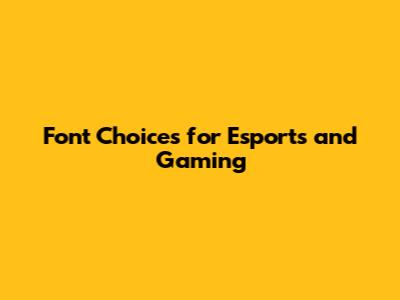
Hey guys, let's dive into something super important for any gamer or esports enthusiast: fonts! You might not think about it much, but the font you see on screen, whether it's in a game's UI, a team's logo, or even a streamer's overlay, plays a HUGE role in setting the vibe. We're talking about esports and gaming fonts here, and choosing the right one can make a massive difference. It's not just about looks; it's about readability, conveying emotion, and even building brand identity. Think about it – you wouldn't want a super fancy, hard-to-read script font for a fast-paced shooter, right? Nah, you need something crisp, clear, and maybe a little bit aggressive. Conversely, for a strategy game or a fantasy RPG, you might opt for something more thematic and detailed. We're gonna break down why these choices matter, what makes a good gaming font, and maybe even point you towards some awesome options to check out. So, buckle up, grab your favorite snack, and let's get nerdy about typography in the gaming world. We'll explore how different font styles can impact your perception of a game or brand, and why designers put so much thought into these seemingly small details. It's a whole universe of design principles at play, influencing everything from the clarity of in-game text to the overall aesthetic appeal of esports events. Get ready to see fonts in a whole new light!
The Importance of Readability in Gaming Fonts
When we're talking about esports and gaming fonts, the absolute number one priority, guys, has got to be readability. Seriously, imagine you're in the middle of an intense match, your heart is pounding, and you need to quickly glance at your ammo count or a crucial objective marker. If the font is too small, too stylized, or just plain clunky, you're gonna have a bad time. This isn't just about personal preference; it's about performance. Clear, legible text ensures that players can access vital information without missing a beat. Think about the user interface (UI) of your favorite games. Developers spend ages perfecting every button, icon, and piece of text to ensure it's intuitive and easy to understand, even under pressure. A poorly chosen font can completely undermine all that hard work. It can lead to frustration, confusion, and ultimately, a less enjoyable gaming experience. We're not just talking about games, either. Esports organizations, streamers, and tournament organizers all rely on clear typography for branding, communication, and broadcasting. A team logo needs to be instantly recognizable, and a streamer's overlay needs to be easily scannable during a live broadcast. This is where the magic of good font design comes in. It needs to be bold enough to stand out but not so flashy that it becomes distracting. It needs to be distinct enough to have personality but not so unique that it sacrifices clarity. We're looking for fonts that strike that perfect balance between aesthetic appeal and functional clarity. This is especially crucial in esports, where split-second decisions can make or break a match. Every piece of information displayed on screen needs to be processed almost instantaneously. Therefore, a font that prioritizes clean lines, appropriate spacing, and distinct letterforms is paramount. Consider the variety of text elements in a game: character names, item descriptions, chat messages, objective markers, health bars, and so on. Each of these might have slightly different requirements, but the overarching need for legibility remains constant. Designers often use different weights and styles of a single font family to maintain consistency while subtly differentiating types of information. For instance, a slightly bolder weight might be used for titles, while a regular weight is perfect for body text. The goal is to create a visual hierarchy that guides the player's eye and ensures they can quickly identify and understand the information they need, when they need them. It's a subtle art, but one that has a profound impact on the overall gaming experience.
What Makes a Font "Gamer-Friendly"?
So, what exactly makes a font tick when it comes to the world of esports and gaming fonts? It's a combination of factors, really. First off, boldness and weight are key. Games and esports often have a high-energy, dynamic feel, and a font that's too thin can get lost in the visual clutter. Think of fonts that have a strong presence, maybe even a slightly aggressive edge. This doesn't mean they have to be overly complex, though. In fact, simplicity and clarity are often preferred. Overly decorative fonts can be a nightmare to read, especially when they're crammed into small spaces or displayed quickly. You want a font where the letters are distinct and easily recognizable. This means good kerning (the space between letters) and clear letterforms. Another crucial element is versatility. A good gaming font should work well in various sizes and contexts. Can it look sharp on a massive esports arena screen? Can it also be legible when shrunk down to a tiny icon or menu item? This adaptability is super important for game developers and esports brands who need their visual identity to be consistent across different platforms and applications. We also see a lot of fonts with a futuristic or techy vibe. This often comes through in sharp angles, geometric shapes, and a generally modern aesthetic. Think about sci-fi games or cyberpunk themes – the fonts usually reflect that. However, it's not a strict rule. Some fantasy games might use fonts that have a more rugged, medieval feel, but they'll still prioritize readability. What really ties it all together is the overall impression the font gives off. Does it feel exciting? Does it feel epic? Does it feel reliable? The font is a silent storyteller, and in gaming, it's often telling a story of action, competition, and immersion. We often see fonts that have a slight stencil effect or a distressed look, which can add a gritty, industrial feel that's popular in many action-oriented games. Others might have sharp, angular terminals that give them a sense of speed and precision. Even the x-height (the height of lowercase letters like 'x') plays a role; a larger x-height generally improves readability. Consider the spacing; fonts with slightly wider letter spacing can sometimes feel more open and easier to read, especially in dynamic environments. The key is that the font shouldn't be a barrier to the player's engagement with the game or the esports content. It should enhance it, subtly guiding their eyes and reinforcing the intended atmosphere. It’s about finding that sweet spot where a font has enough character to be memorable and engaging, without sacrificing the fundamental need for clear communication. This often leads to designers creating custom font families or heavily modifying existing ones to achieve the precise look and feel they desire for their project.
Exploring Different Font Styles for Gaming
Alright, let's get into the nitty-gritty, guys, and explore the different font styles that dominate the esports and gaming fonts landscape. You'll notice a few common themes popping up. First up, we've got the sans-serif fonts. These are your go-to for clarity and a modern feel. Think clean lines, no fancy little feet (serifs) on the letters. They are super versatile and work brilliantly for UI elements, in-game text, and general branding. Many futuristic or sci-fi games lean heavily on sans-serifs because they just scream